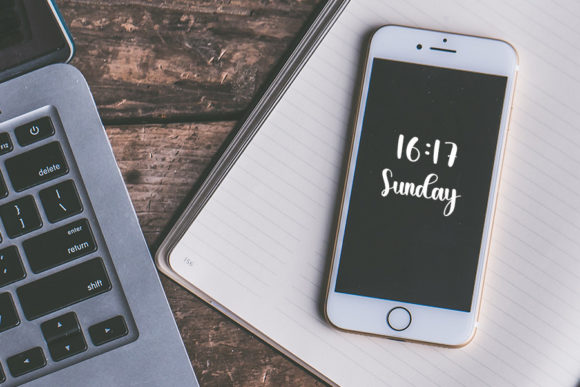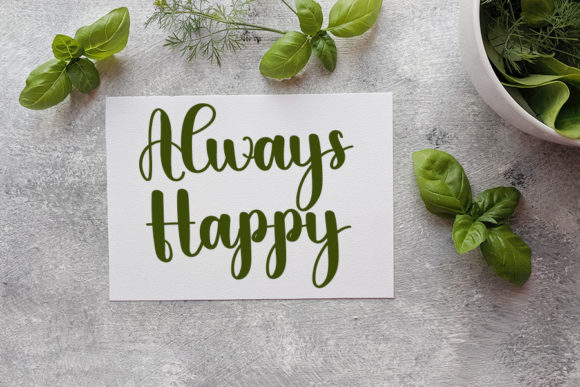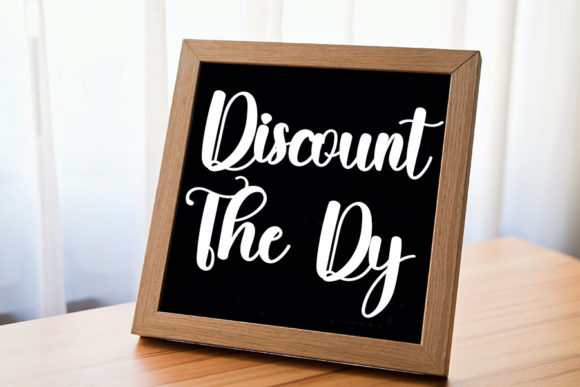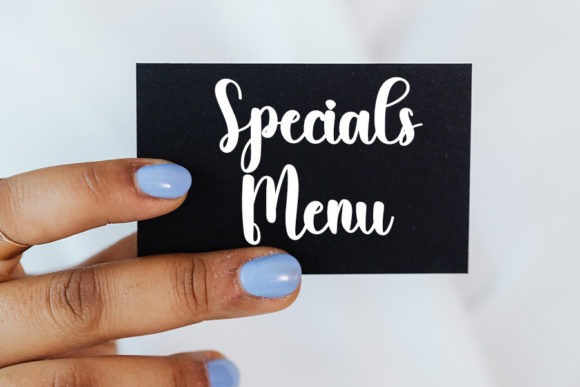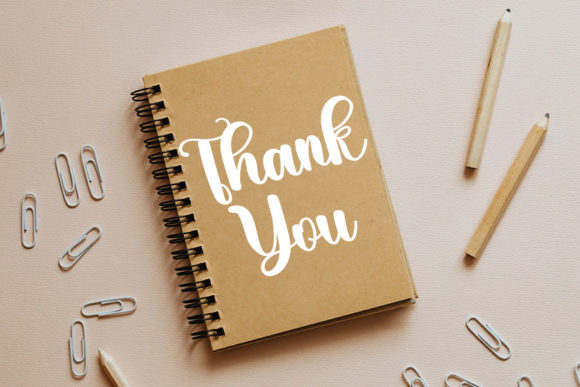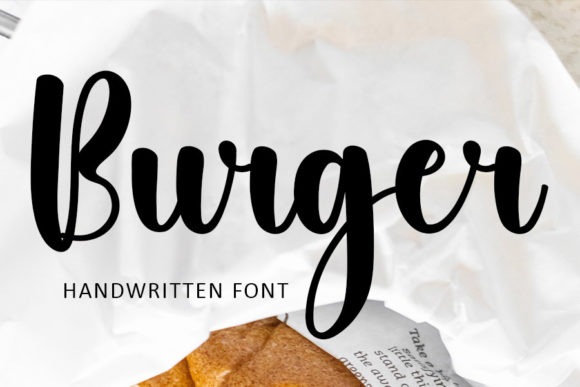
The Burger Font: A Stylish Handwritten Classic for Your Creative Projects
Have you ever been in the middle of a design project, and suddenly, you’re stuck on finding the perfect font? I recall a recent experience where I was working on a branding project for a trendy burger joint, and I just couldn’t find a font that captured the right vibe. That’s when I stumbled upon the Burger font – a stylish handwritten font that instantly elevated my design game!
A Personal Review: What I Love About Burger Font
Here’s what I love about the Burger font:
- ✨ Contemporary atmosphere: The Burger font exudes a modern feel that’s perfect for designs that need a fresh touch.
- ✅ Impeccable form: The font’s balanced and varied letterforms make it a joy to work with.
- 💫 Timeless classic calligraphy: The Burger font takes inspiration from traditional calligraphy, giving it an elegant and sophisticated edge.
While the Burger font is amazing, there are a few things to keep in mind:
- ⚠️ Limited use in body text: Due to its stylish and elegant nature, the Burger font might not be the best choice for long-form body text.
- 🤔 Requires careful kerning: As with any handwritten font, some manual kerning might be necessary to achieve optimal results.
The Designer Inspiration Behind Burger Font
The Burger font was designed with the goal of creating a stylish, handwritten font that captures the essence of timeless classic calligraphy. The designer aimed to create a font that’s both elegant and versatile, making it perfect for a wide range of creative projects.
Q: What type of projects is the Burger font best suited for?
A: The Burger font is ideal for designs that require a touch of elegance and sophistication, such as branding, packaging, and advertising projects.
Q: Is the Burger font suitable for body text?
A: While the Burger font is beautiful, it’s not recommended for long-form body text due to its stylish and elegant nature.